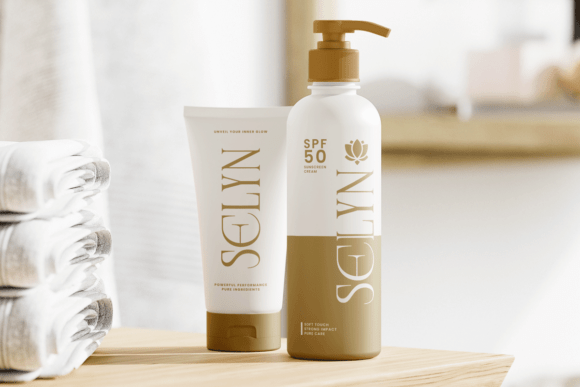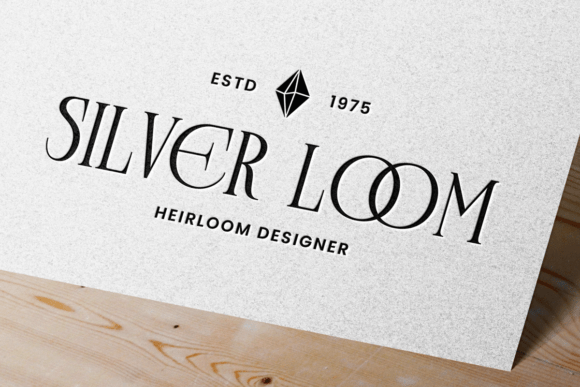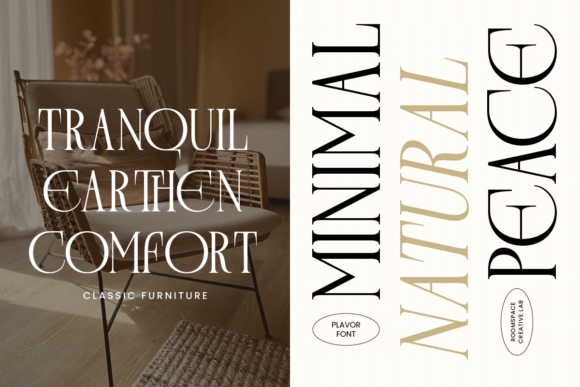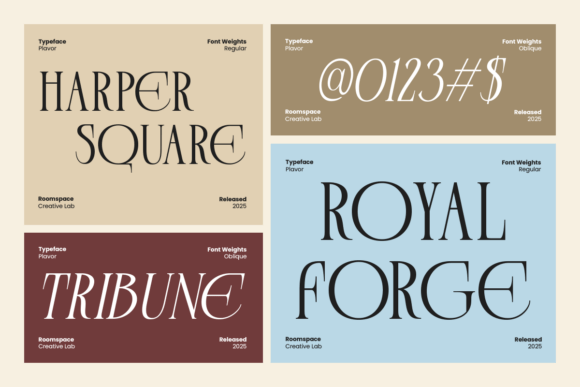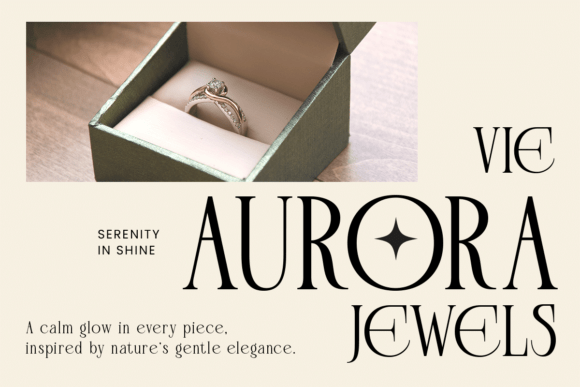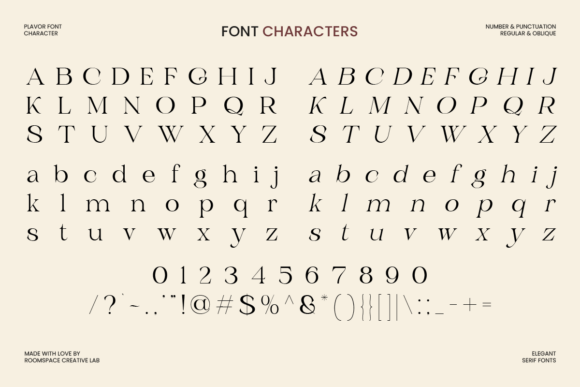
Introduction to Plavor Font
Have you ever stared at a blank canvas, eager to bring your creative vision to life, only to be halted by the perfect font? The moment when everything falls into place, and your design takes on a new level of sophistication. This is where Plavor Font steps in, offering a refined serif font that effortlessly blends timeless sophistication with bold, modern elegance.
As a valuable resource for designers, Plavor Font is a game-changer for any creative project. Its high-contrast strokes, exaggerated vertical proportions, and elegant serif detailing create a dramatic silhouette that commands attention. With Plavor, you can elevate your designs with a luxurious, timeless aesthetic, making it perfect for branding, editorials, luxury packaging, invitations, and logos.
Key Features of Plavor Font
- Designed to be highly versatile, making it suitable for a wide range of design applications.
- Resolution-independent, ensuring crisp and clear text display at any resolution.
- Part of a larger font family, offering a range of styles and weights for added design flexibility.
Honest Review: Plavor Font
I recently had the chance to work with the Plavor Font, and I must say it’s been a game-changer for my design projects. As a designer, I’m always on the lookout for high-quality fonts that can elevate my creative work.
One of the standout features of the Plavor Font is its sleek, modern design. It’s perfect for a wide range of creative projects, from logos and branding to digital displays and signage. The font is incredibly versatile and can be easily customized to fit your unique style.
- High-quality design that’s perfect for modern creative projects
- Wide range of customization options
- May not be suitable for traditional or vintage-style designs
- Some users may find the font too minimalist
Overall, I’m thoroughly impressed with the Plavor Font. It’s a valuable addition to any designer’s toolkit, and I highly recommend it for anyone looking to elevate their creative projects.